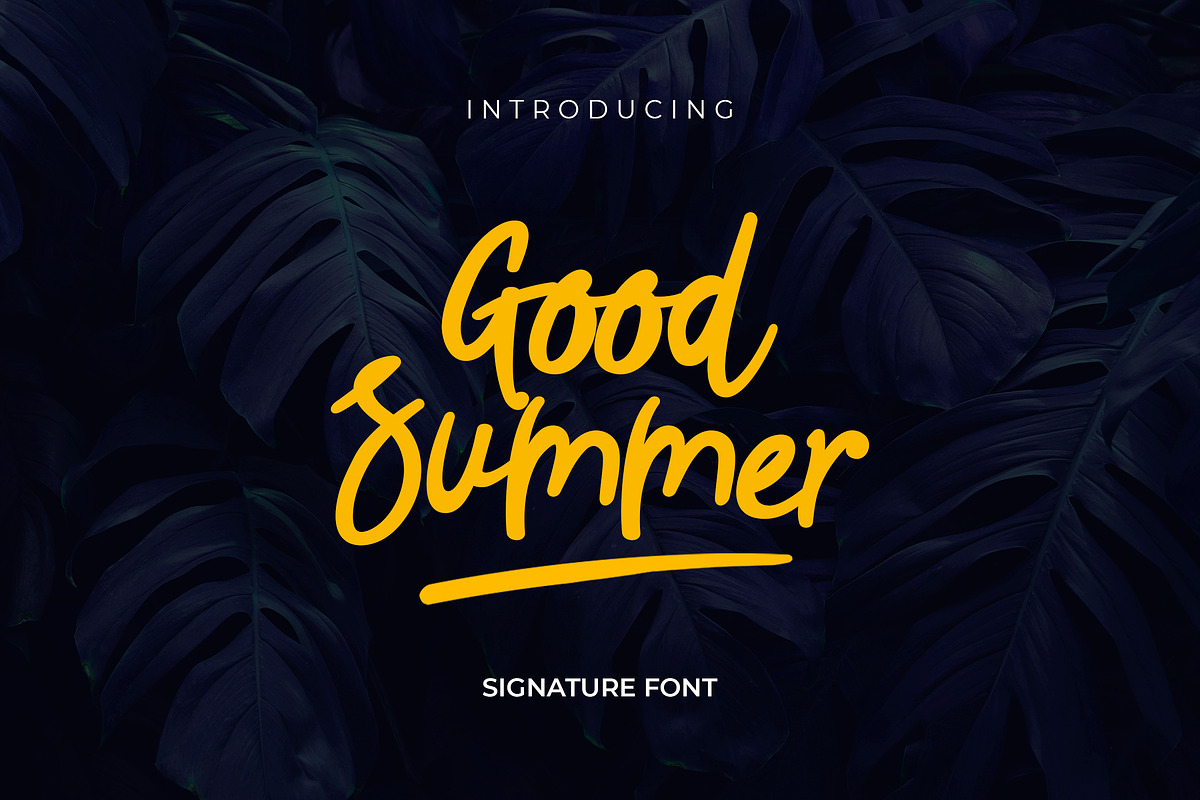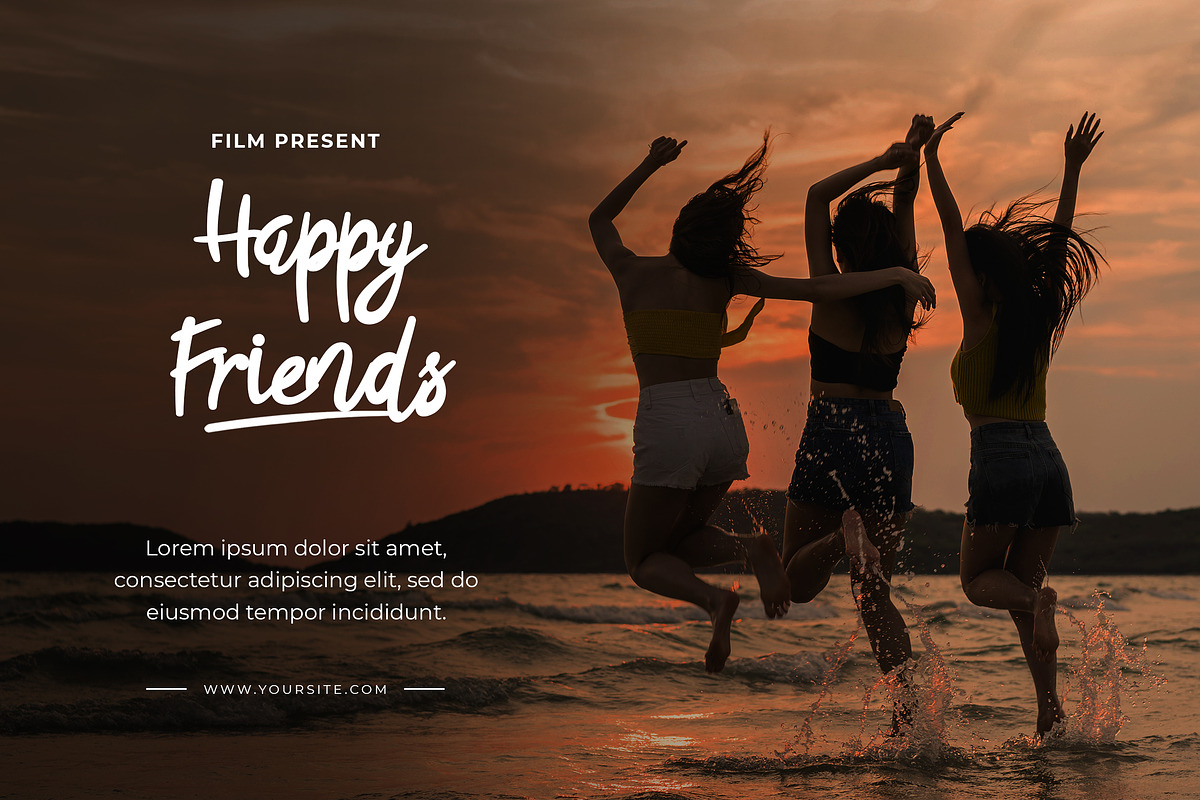
Good Summer Signature Font
Good Summer is a signature font with which you can achieve a handwritten-type lettering feeling. This signature style is perfect for your modern graphic design needs. This font has a really nice flow so you use it in a large text if you want to give them a touch of personality. It can be used on social media content, for branding or packaging.
Also ideal typeface for organic products branding and packaging. Additionally, you can use Broterside signature romantic vibes for wedding invitation designs. Especially if you are looking for a font for Instagram quote posts or any other social media content, this typeface is for you!
Good Summer Signature Font by UICreative fits naturally into Branding, posters, packaging, typography.